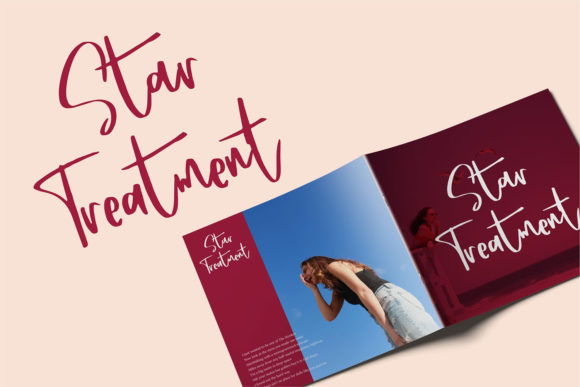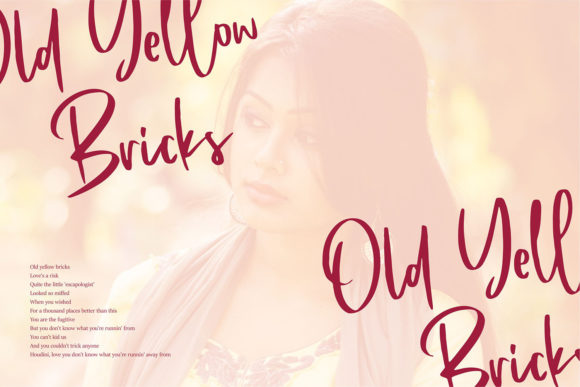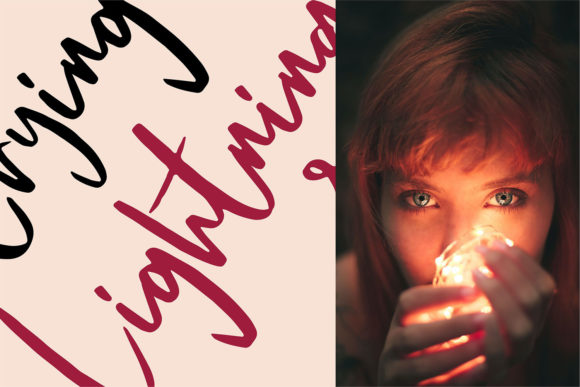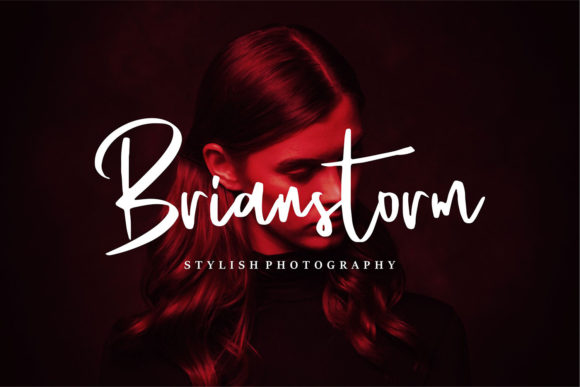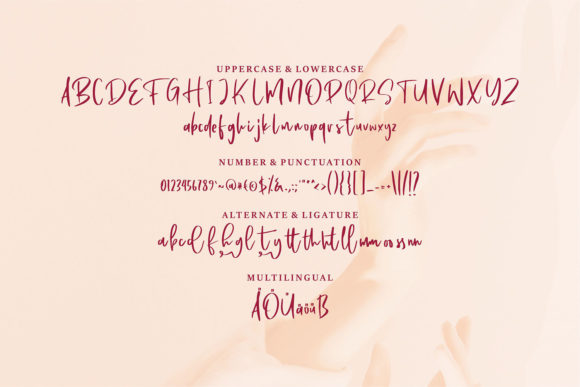
Hellermat Font: A Delicate and Elegant Handwritten Masterpiece
In the world of typography, a good font can make all the difference in the aesthetic and effectiveness of a design. For designers and crafters looking for a unique and elegant touch, Hellermat Font is a fantastic choice. This beautiful handwritten font is sure to impress with its delicate and balanced letters, making it a masterpiece in the world of typography.
What Makes Hellermat Font Special?
Hellermat Font stands out from the crowd due to its distinct and well-balanced letters. Each letterform is carefully crafted to provide a harmonious and elegant feel, making it perfect for a wide range of design projects. Whether you’re working on a logo, branding materials, invitations, or any other creative project, Hellermat Font is sure to add a touch of sophistication and refinement.
One of the key features that make Hellermat Font even more appealing is its PUA (Private Use Area) encoding. This means that users can access all the glyphs and swashes with ease, providing a wide range of creative possibilities. PUA encoding allows designers to unlock the full potential of the font, making it easier to experiment with different styles and effects.
Hellermat Font is an excellent choice for designers and crafters looking to add a personal touch to their work. Its elegant and delicate nature makes it suitable for a variety of projects, including:
- Logos and branding materials: Create a lasting impression with a unique and memorable logo that showcases your brand’s personality.
- Invitations and greeting cards: Add a touch of elegance and sophistication to your invitations and greeting cards.
- Stationery and paper crafts: Elevate your stationery and paper crafts with a beautiful and distinctive font.
- Digital art and illustrations: Use Hellermat Font to add a handwritten touch to your digital art and illustrations.
Tips for Using Hellermat Font
To get the most out of Hellermat Font, here are a few tips to keep in mind:
- Experiment with different sizes: Hellermat Font looks great in a variety of sizes, from small and delicate to large and bold.
- Play with swashes: Take advantage of the PUA encoding to experiment with different swashes and glyphs, adding a unique touch to your designs.
- Combine with other fonts: Pair Hellermat Font with other fonts to create a unique and interesting contrast.
In conclusion, Hellermat Font is a beautiful and elegant handwritten font that is sure to impress designers and crafters alike. Its distinct and well-balanced letters, combined with PUA encoding, make it a versatile and creative choice for a wide range of design projects. Whether you’re looking to add a touch of sophistication to your work or simply want to try something new, Hellermat Font is definitely worth checking out.
Get Creative with Hellermat Font